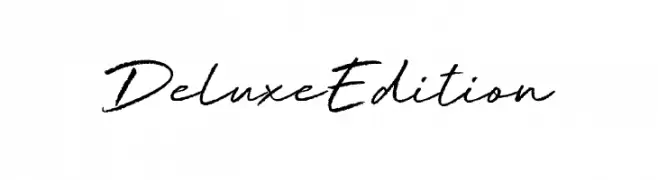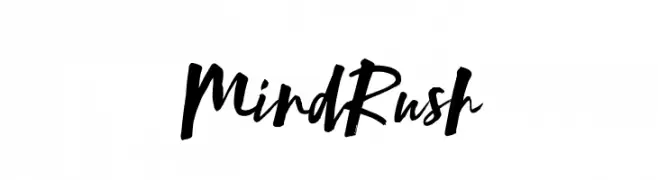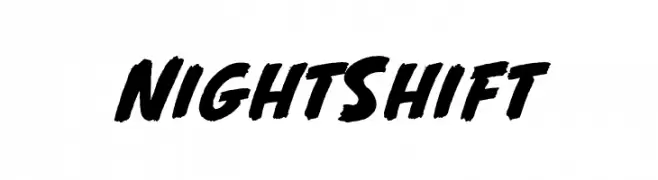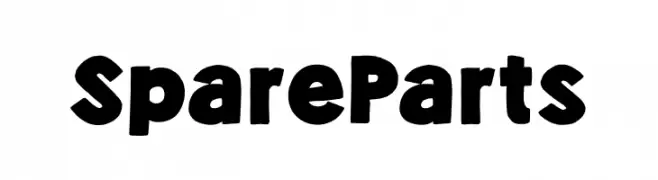
A bold, energetic script font with a hand-painted, dynamic style.
A bold, brush-style script font with dynamic, energetic strokes.
A cursive, handwritten font with elegant and fluid strokes.
A bold, rounded, and playful font with a hand-drawn feel.
A bold, brush-style font with dynamic strokes and artistic flair.
A dynamic, brush-style font with a hand-painted look.